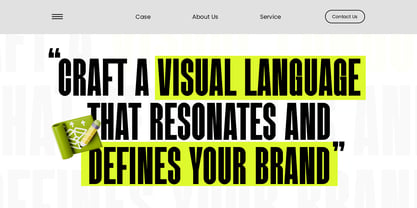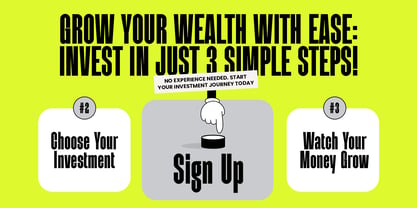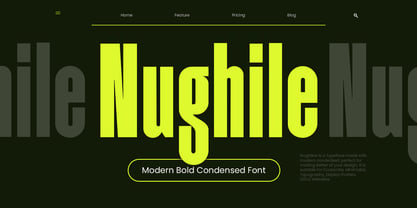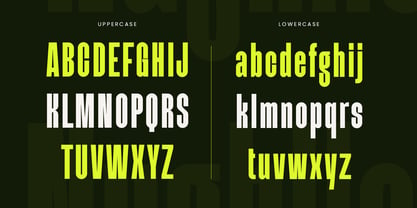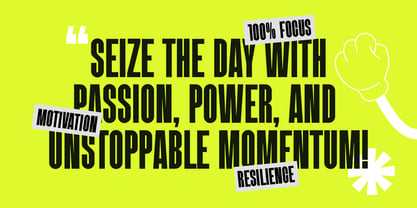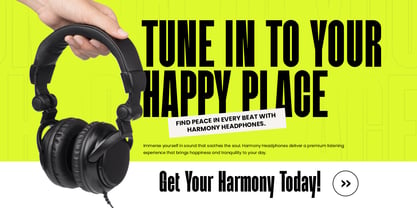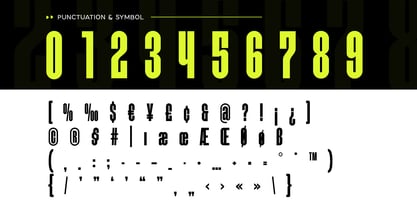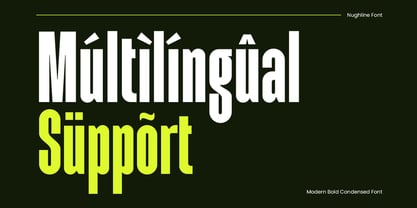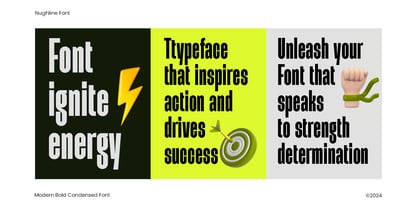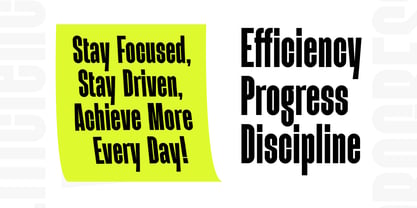
Nughile
A família de fontes Nughile foi desenhada por Zamroni Hamzah e publicada pela Sensatype Studio. Nughile contém 2 estilos e opções de pacote familiar. Saiba mais sobre esta família
Nughile - Modern Bold Condedsed Font
Nughile is a modern bold condensed font designed to make a statement. With its strong presence and sleek lines, this font is perfect for projects that demand attention. Whether you're creating a logo, headline, or any graphic design, Nughile brings a contemporary edge that captures the essence of modern branding.
The condensed style of Nughile allows for efficient use of space while maintaining clarity and impact. Its bold weight ensures that your message stands out, making it an excellent choice for advertising, promotions, and any creative work where you want to grab attention.
With Nughile, you have a versatile font that can adapt to various design needs. Its clean lines and bold forms create a dynamic look that is both professional and stylish, ensuring your designs resonate with your audience.
Nughile Modern Bold Condensed Font Features:
• Unique Characters Ready
• Punctuation, Number, and Symbol
• Uppercase and Lowercase
• Opentype Features
Multilingual Character Support available for:
Afrikaans, Albanian, Asu, Basque, Bemba, Bena, Breton, Chiga, Cornish, Dutch, English, Estonian, Filipino, Finnish, Friulian, Galician, German, Gusii, Indonesian, Irish, Italian, Kabuverdianu, Kalenjin, Kinyarwanda, Luo, Luxembourgish, Luyia, Machame, Makhuwa-Meetto, Makonde, Malagasy, Manx, Morisyen, North, Ndebele, Nyankole, Oromo, Portuguese, Quechua, Romansh, Rombo, Rundi, Rwa, Samburu, Sango, Sangu, Scottish, Gaelic, Sena, Shambala, Shona, Soga, Somali, Spanish, Swahili, Swedish, Swiss.